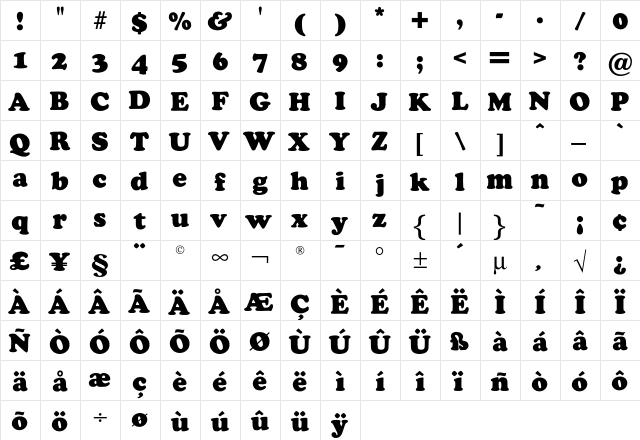
CooperFiveOpti Black
Design Context for CooperFiveOpti Typeface
CooperFiveOpti takes a measured approach to typography — its balanced proportions and neutral character make it a reliable workhorse for both digital and print work.